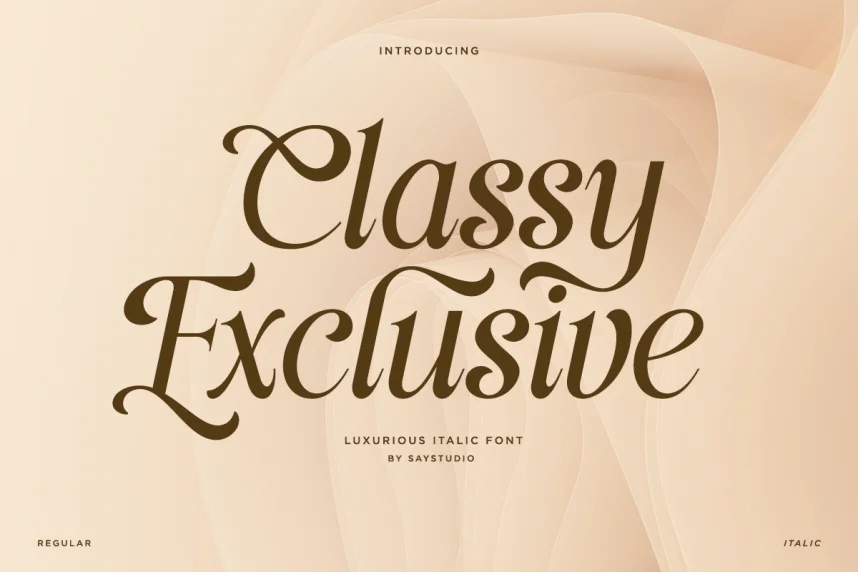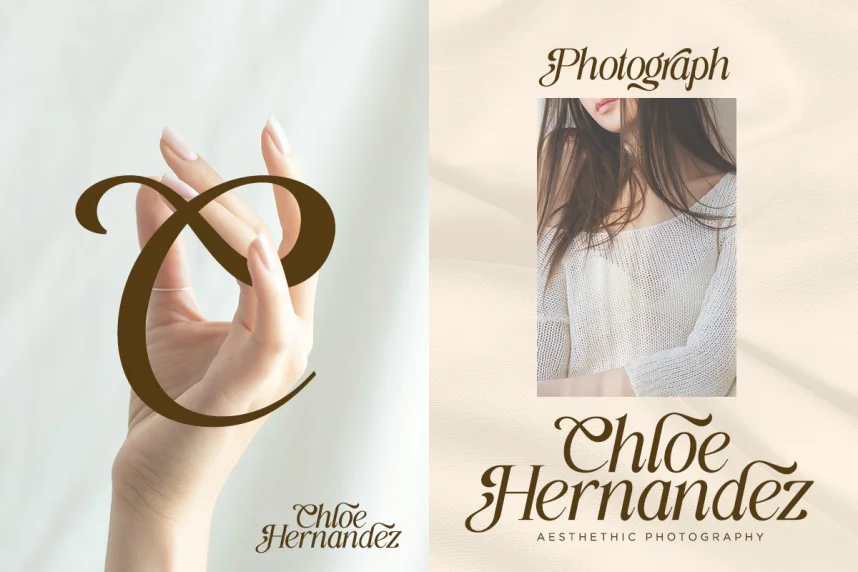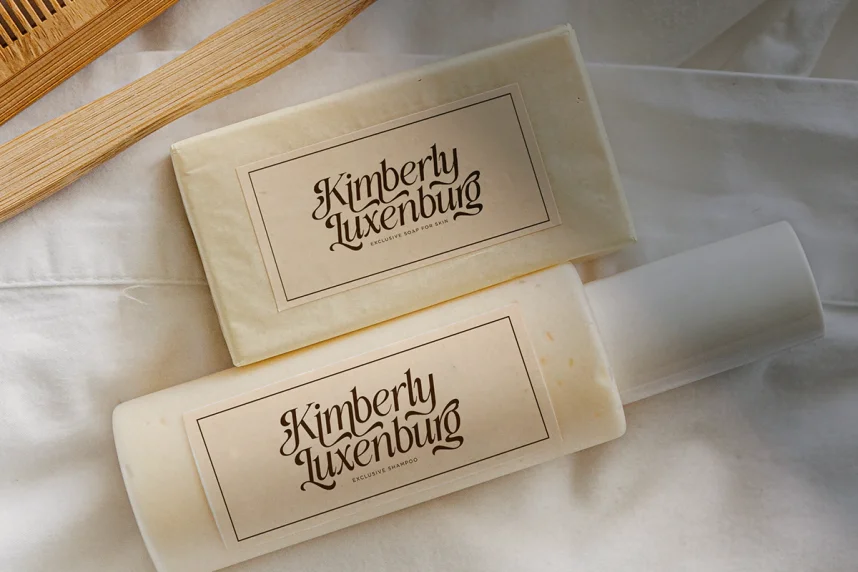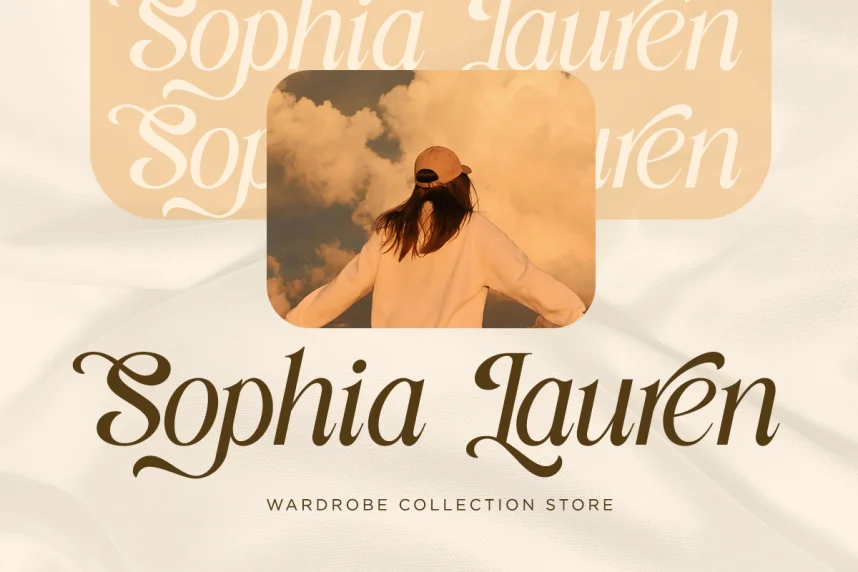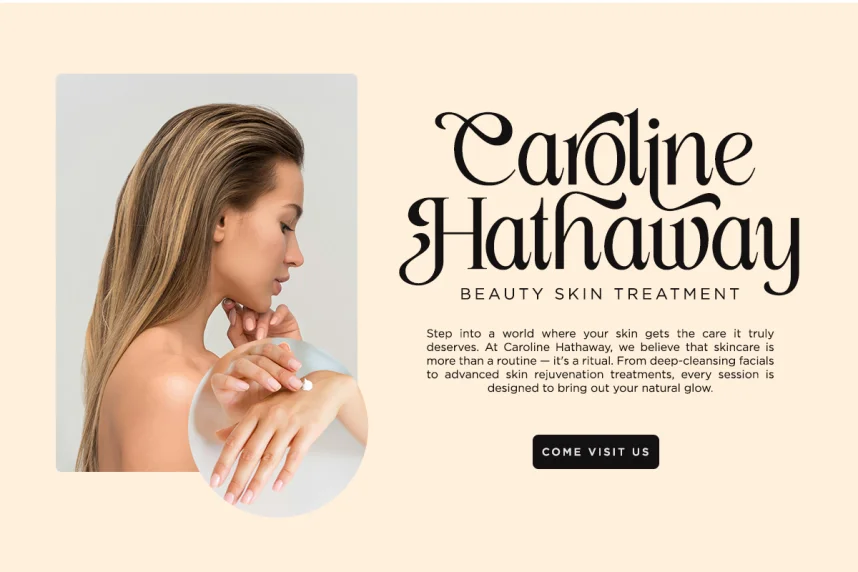
Classy Exclusive Font supports formal branding needs where typography must remain controlled and readable. Overly decorative fonts often reduce clarity in invitations and logos.
Classy Exclusive is a refined serif display font with balanced stroke contrast and smooth curves. The letterforms maintain structure, improving legibility for titles and branding elements.